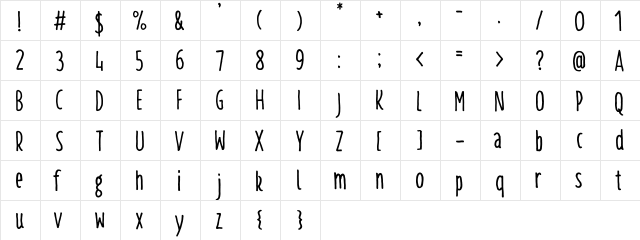
TallTiny Bold Regular Font Preview
TallTiny Bold Regular
TallTiny Bold Regular Font Details
Design Context for TallTiny Bold Typeface
TallTiny Bold is a composed and adaptable typeface that performs quietly and consistently across a wide range of design contexts. Its bold stroke weight gives it real presence on the page.